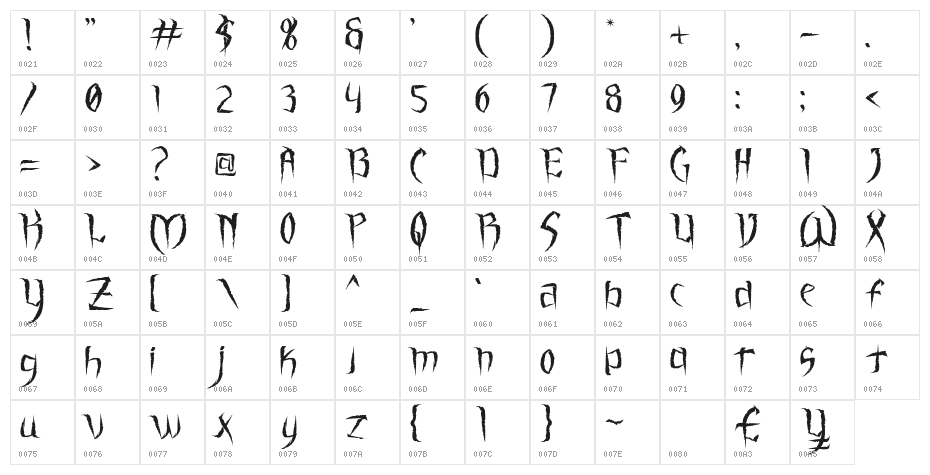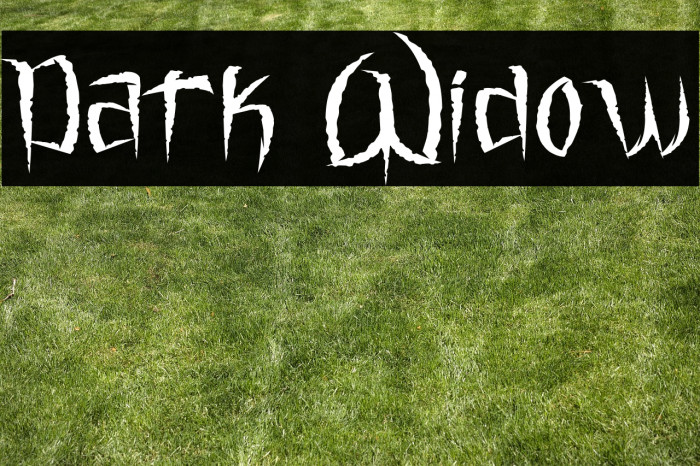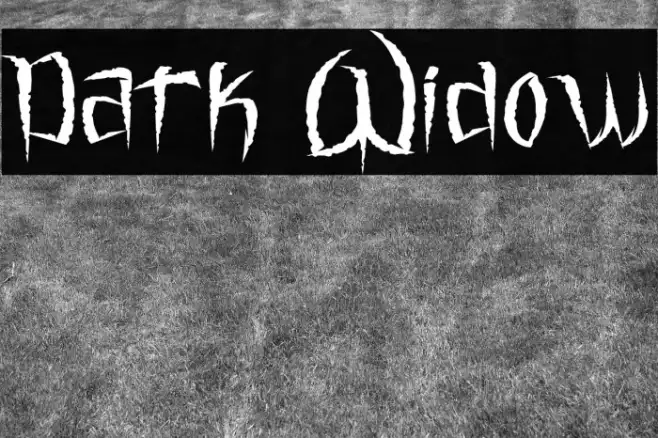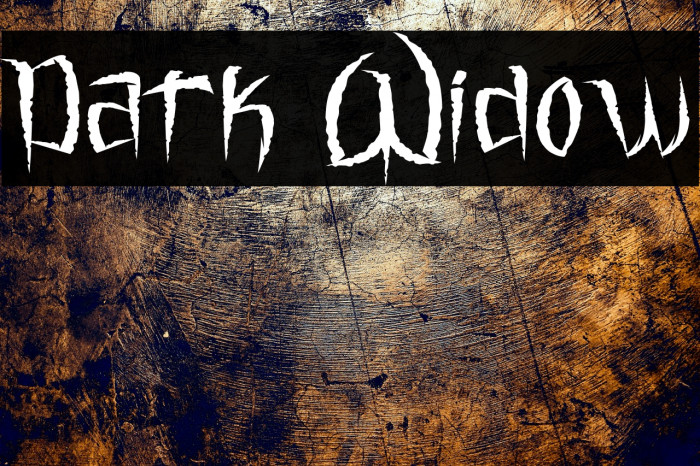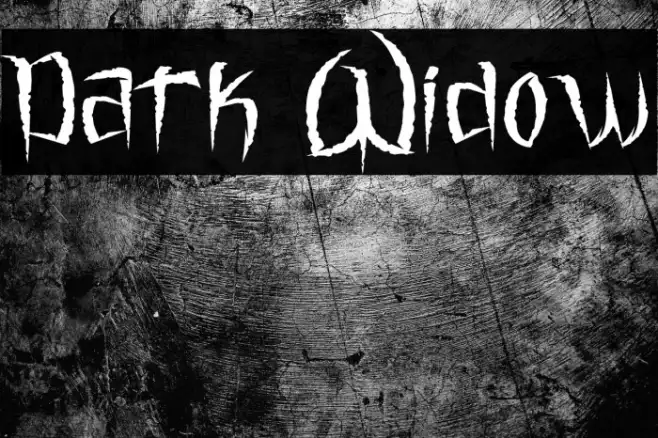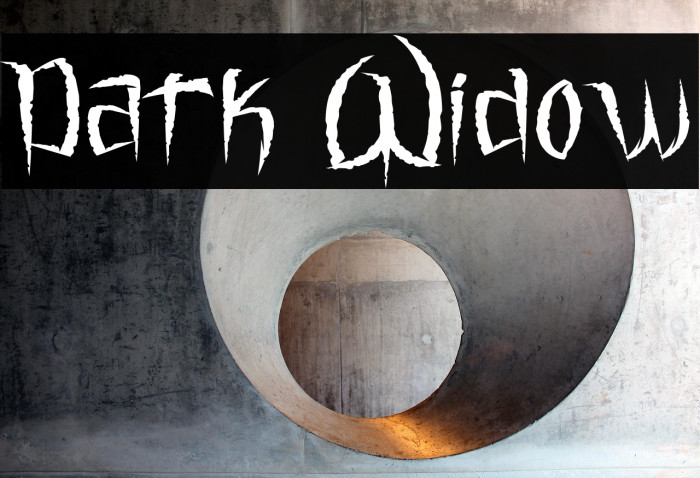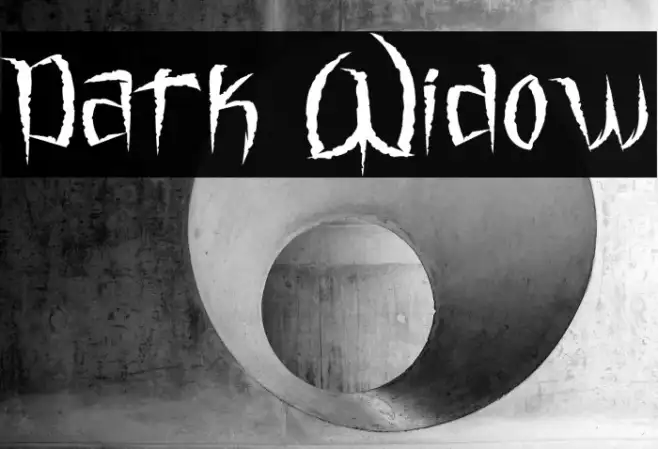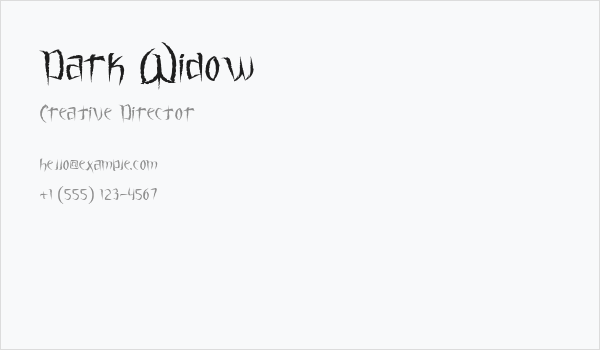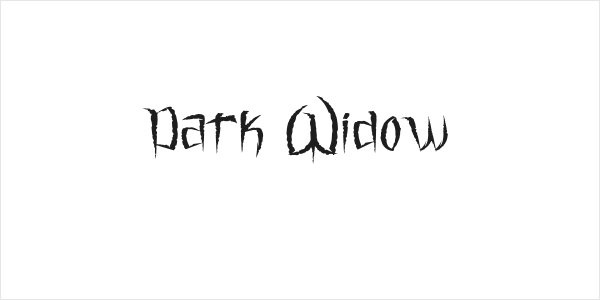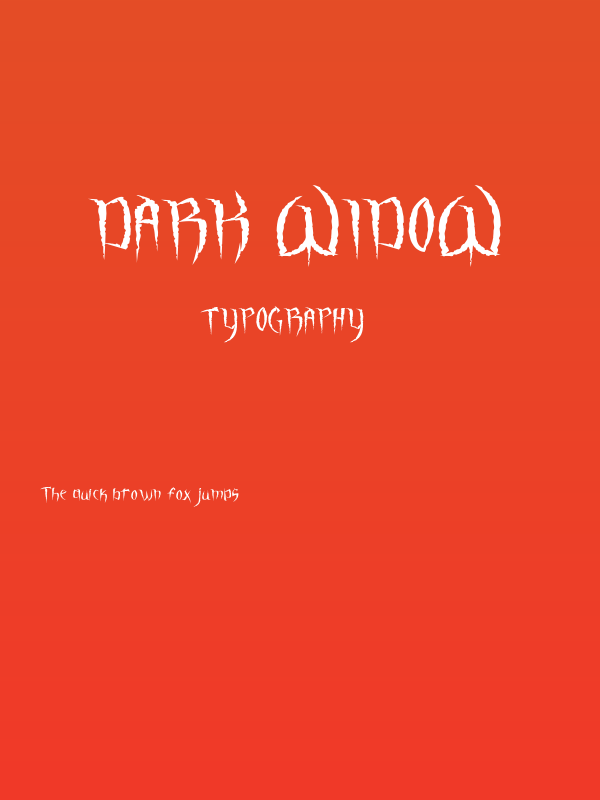
Dark Widow Font
Dark Widow Description
This font exhibits a dark, edgy aesthetic with sharp, jagged edges and a hand-drawn appearance. The characters are bold and dramatic, featuring irregular strokes that give a sense of movement and intensity. The uppercase and lowercase letters maintain a consistent style, with elongated verticals and pointed serifs that enhance its gothic feel. Numbers and special characters follow the same design principles, ensuring a cohesive look across all elements. The overall impression is one of mystery and intrigue, making it suitable for projects that require a bold statement.
| Overall Style | Gothic, Edgy, Dramatic |
| Proposed Projects | Ideal for horror-themed posters, album covers, video game titles, or any project needing a dramatic, mysterious touch. |